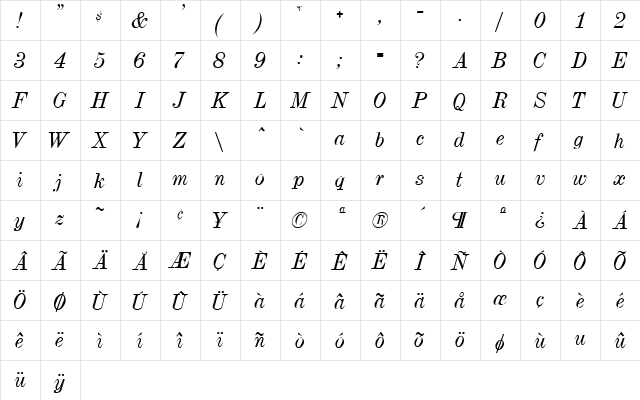
Get It Up 1 Regular
Design Context for Get It Up 1 Typeface
Get It Up 1 takes a measured approach to typography — its balanced proportions and neutral character make it a reliable workhorse for both digital and print work.